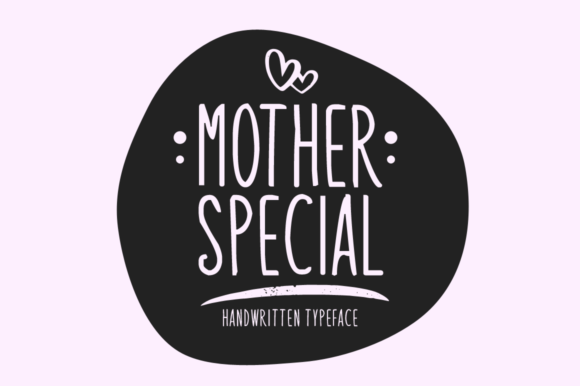
Introducing Mother Special Font, the playful and joyous display font that will add a touch of charm and uniqueness to your digital creations.
Step into a world of creativity and imagination with Mother Special, a display font designed to capture hearts and make your designs shine. This playful and adorable typeface boasts a friendly and inviting personality, perfect for adding a touch of whimsy and cheer to any project.
With its charming curves and cheerful demeanor, Mother Special is the perfect choice for creating eye-catching headlines, captivating social media posts, and enchanting invitations. Let your words dance with delight as you craft designs that are sure to leave a lasting impression.
But Mother Special is more than just a pretty face. Its versatility and adaptability make it a valuable asset for a wide range of design projects. Whether you're creating posters, flyers, logos, or website graphics, Mother Special will effortlessly elevate your designs to new heights of creativity.
Immerse yourself in the magic of Mother Special and let your imagination soar. Discover a world of endless possibilities where words come alive with personality and charm. Embrace the playful spirit of this delightful font and watch as your designs blossom into works of art.
So, embark on this enchanting journey with Mother Special and unleash your creativity like never before. Let your designs radiate with joy and captivate your audience with every stroke of this remarkable font.